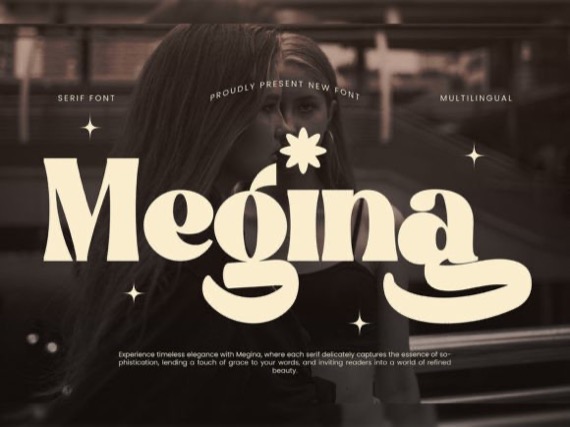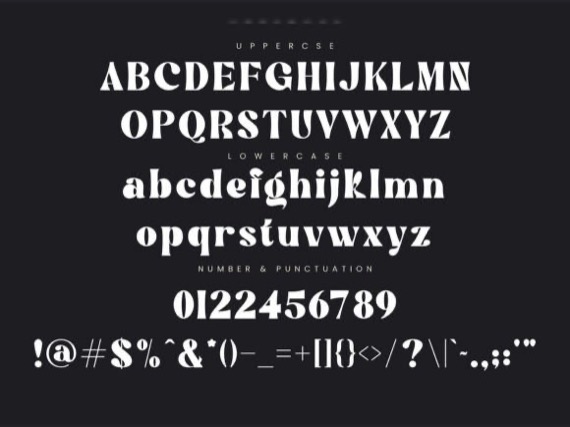
Introducing Megina Font by Artnivora.std, a classic and friendly serif groovy font that exudes sophistication and chic. Each serif delicately captures the essence of sophistication, lending a touch of grace to your words, and inviting readers into a world of refined beauty.
Megina Groovy Display Font